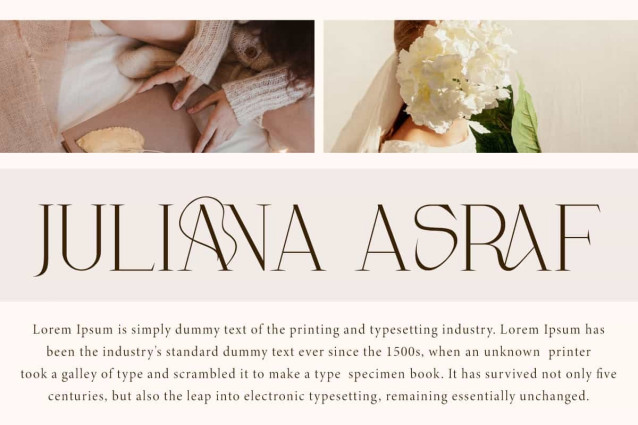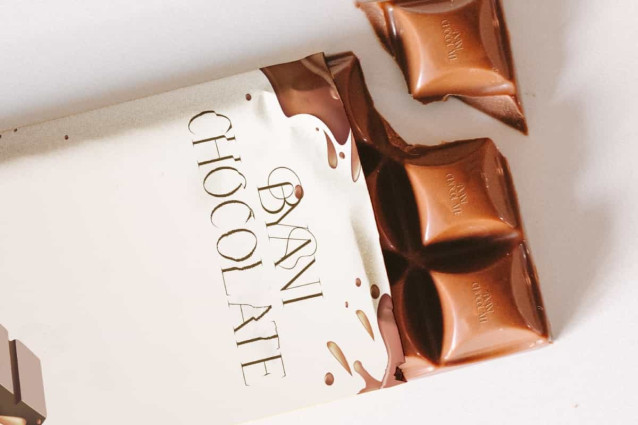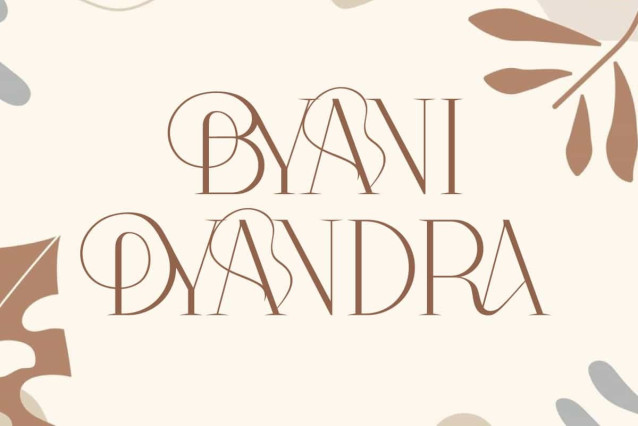
Byani Dyandra Font
Byani Dyandra Font is an elegant and modern display serif font. With a thin and decorative style, this font will be perfect for any project, can be used for advertising, brand image, custom design, invitation, label, quotes, stationery, template design, website, and more!
Byani Dyandra Font includes full set of Uppercase and Lowercase Basic Characters, Numerals, Punctuation, and Symbol. The Ligature character will add a distinctive aesthetic touch and perfect for a variety of industries, such as accessories and jewelry, beauty product, event or wedding organizer, fashion, florist, furniture, real estate, spa salon, etc.